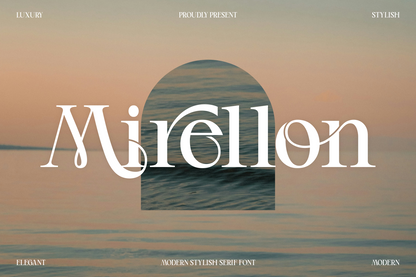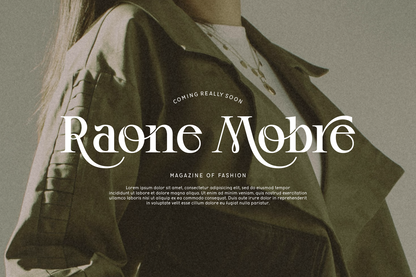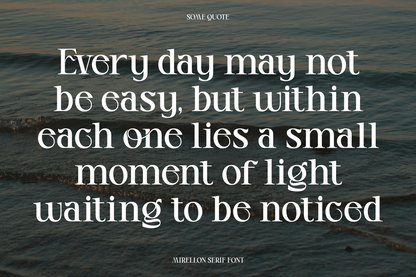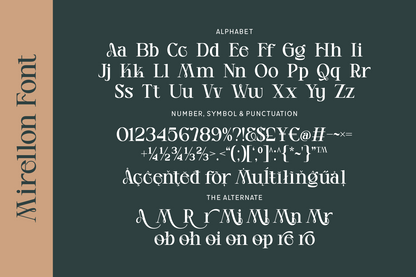
Mirellon is a modern stylish serif font that captures attention with its flowing ligatures and elegant letterforms. It’s a fusion of classical structure and artistic flair, ideal for luxury branding, coastal editorials, and minimalist packaging. The font carries a light, airy essence while remaining grounded and expressive.
Its organic curves and imaginative swashes offer just the right amount of creativity without losing legibility. Mirellon invites beauty, emotion, and calm sophistication into every design it touches.